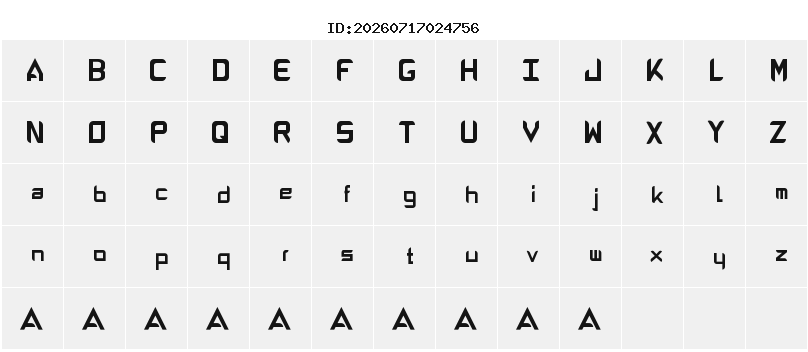
About ABANDON ALPHABETA.ttf
ABANDON ALPHABETA.ttf is a modern, elegant sans-serif font designed for ultimate readability and visual harmony. Perfect for branding, headlines, web design, and print materials.